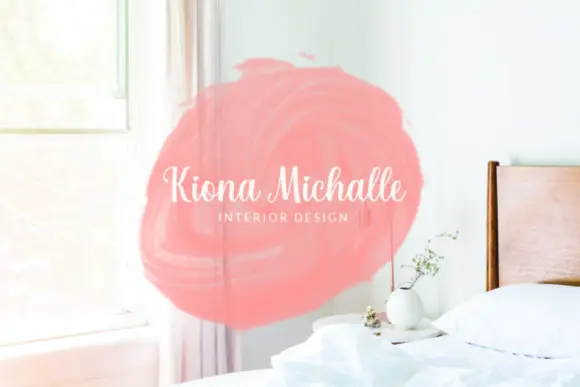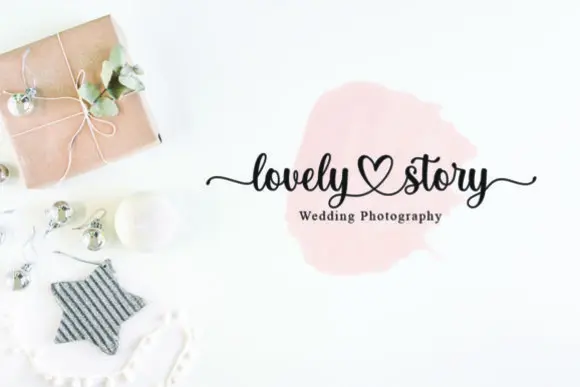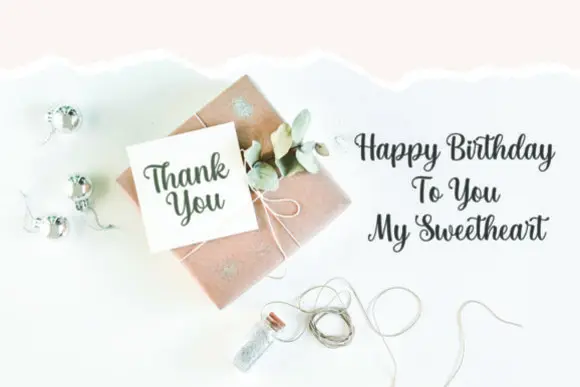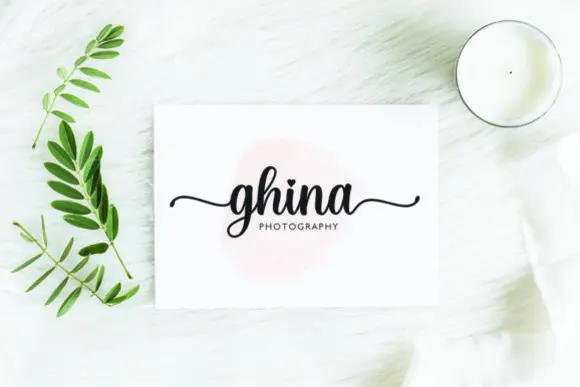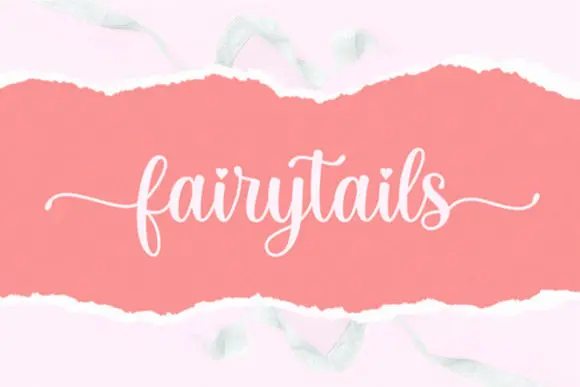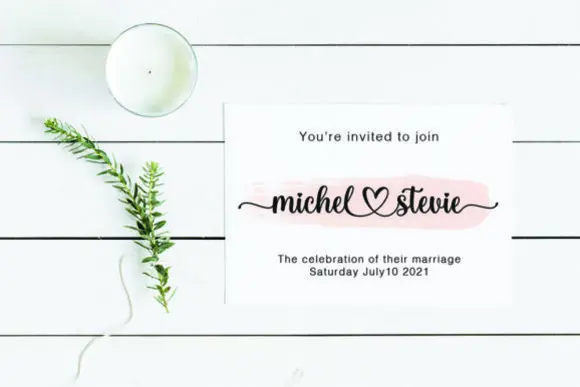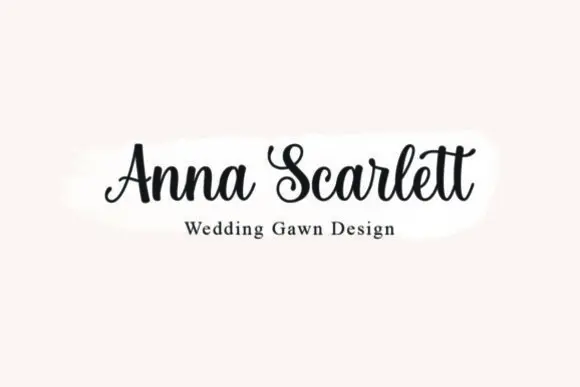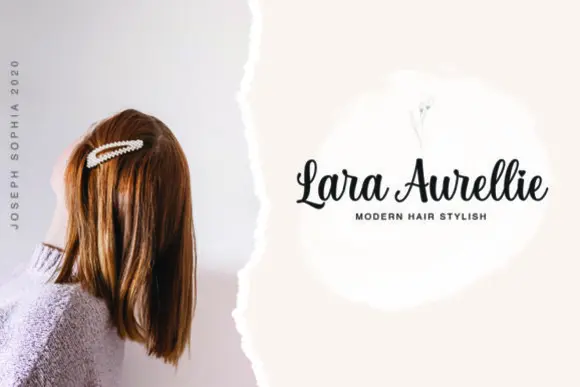
Joseph Sophia Elegant Handwritten Font – Charming Script Typeface with Glyphs & Swashes for Wedding Invitations, Thank You Cards, Quotes, Greeting Cards, Logos, Business Cards & Romantic Designs
Create charming, graceful, and beautifully handwritten designs with Joseph Sophia Font, an elegant script typeface made for projects that need a soft personal touch. With smooth lines, a varying baseline, gorgeous glyphs, and stunning alternates, this font gives your text a natural handwritten feel while still looking polished and stylish.
Joseph Sophia Font is perfect for wedding invitations, thank you cards, greeting cards, romantic quotes, logos, business cards, branding designs, social media graphics, product packaging, labels, stickers, stationery, printable wall art, and boutique-style creative projects. Its elegant handwritten appearance makes it suitable for both formal and casual designs, especially where warmth, personality, and beauty are important.
This font is also PUA encoded, allowing easy access to glyphs and swashes so you can create more decorative and customized typography layouts. Whether you are designing wedding stationery, feminine branding, luxury packaging, heartfelt greeting cards, or signature-style logos, Joseph Sophia Font helps your words feel expressive, graceful, and memorable.
Wedding invitations, thank you cards, greeting cards, romantic quotes, logos, business cards, branding, stationery, product packaging, labels, social media posts, printable wall art, stickers, boutique designs, feminine projects, and elegant creative layouts.
Key Features
• Charming and elegant handwritten script style
• Smooth lines with a natural varying baseline
• Includes gorgeous glyphs and stunning alternates
• Perfect for wedding, branding, and greeting card designs
• Adds a personal handwritten touch to creative projects
• Suitable for digital, print, craft, and commercial design work